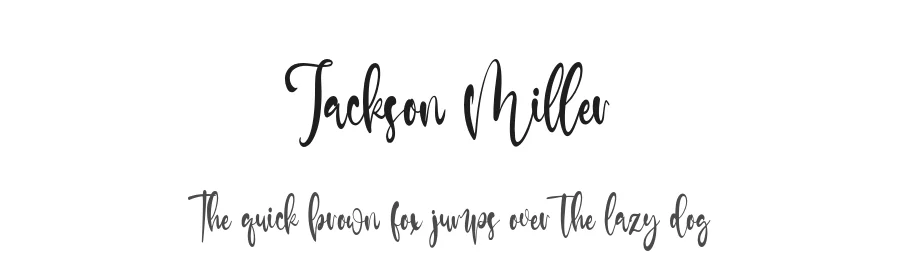
About Cahyati Font
Cahyati is a script & handwritten font designed by Muhammad Romzul Khoir. It includes 99 glyphs, a regular weight, TTF (TrueType) format, and 104 languages. Cahyati is free to download; check the license details on this page before commercial use. Script & handwritten fonts like Cahyati work best for wedding invitations, greeting cards, signatures, and elegant branding.
Cahyati Font is a script font that shines as a display or heading face. Pair it with a clean sans-serif or serif font for body text β the contrast creates a clear hierarchy while the two styles stay balanced and easy to read.